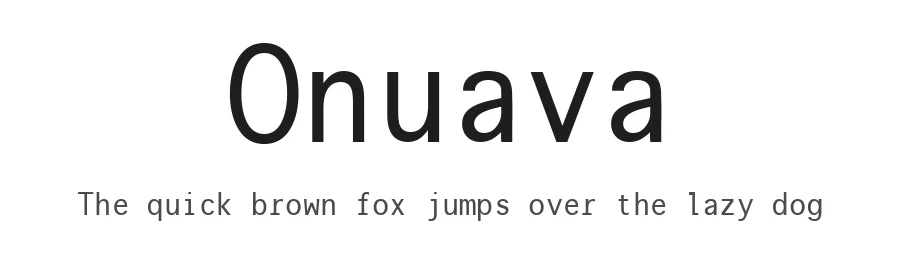
About Goorm Sans Code Font
Goorm Sans Code is a sans-serif font designed by Fontrix Inc.. It includes 17108 glyphs, a regular weight, TTF (TrueType) format, and 372 languages. Goorm Sans Code is free to download; check the license details on this page before commercial use. Sans-serif fonts like Goorm Sans Code work best for clean body text, user interfaces, branding, and modern layouts.
| Designer | Fontrix Inc. |
Goorm Sans Code ships with 1 OpenType feature you can switch on in apps that support them (Illustrator, InDesign, Affinity, Figma, CSS font-feature-settings).
Goorm Sans Code Font is a versatile sans-serif font that works for both headings and body text. Pair it with a contrasting serif or slab serif font to add visual interest and a clear distinction between titles and body copy.
Goorm Sans Code Font
by Fontrix Inc.
Goorm Sans Code Font is a sans serif typeface by Fontrix Inc., ideal for logos, invitations, branding, and creative projects.